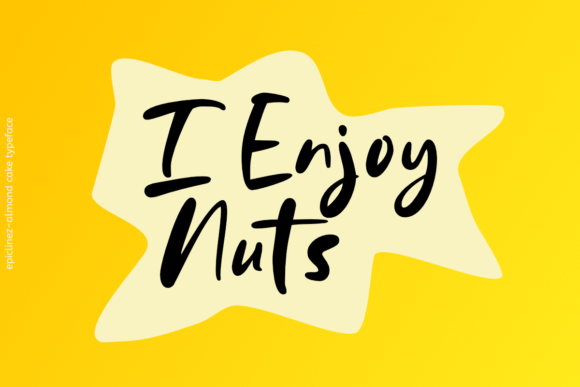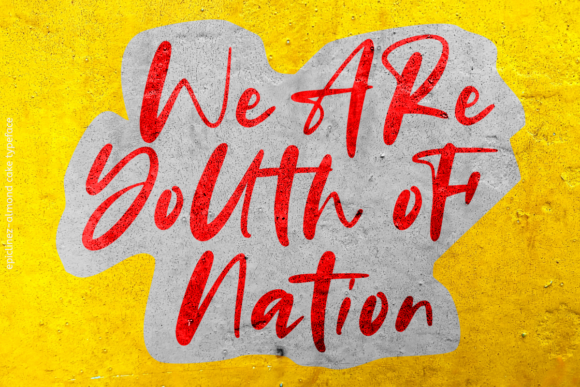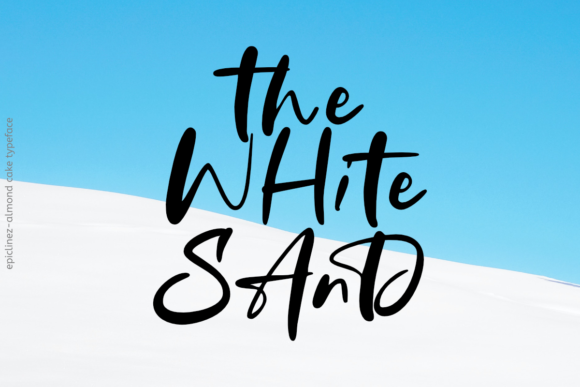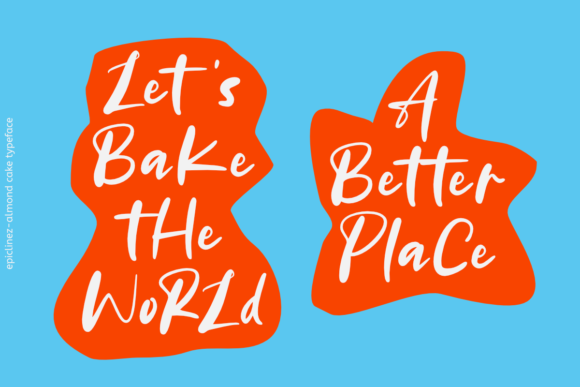
The Sweet Spot for Designers: Almond Cake Font
For those moments when you need a little something extra to get your creative juices flowing, consider reaching for the Almond Cake Font. This charming handwritten font is the perfect addition to any design project, offering a touch of whimsy and personality that’s sure to capture attention. With its natural, unique style, the Almond Cake Font is the ultimate go-to for designers looking to add a little extra sweetness to their work.
Almond Cake Font Key Features
- Font Family: Almond Cake is a script font designed to resemble handwritten text, perfect for adding a personal touch to your designs.
- Unique Characteristics: Almond Cake features a unique blend of elegance and playfulness, making it ideal for wedding invitations, birthday cards, and other special occasion designs.
Almond Cake Font Review
I recently had the chance to work with the Almond Cake Font, and I must say it’s a delightful addition to any design project. ✨ The font’s elegant script style makes it perfect for creating a warm and inviting atmosphere in your designs. It’s ideal for branding, invitations, and even wedding designs.
- Beautiful, elegant script style
- Perfect for creating a warm and inviting atmosphere
- Great for branding, invitations, and wedding designs
- Includes a wide range of characters and punctuation
However, there are a few limitations to consider. ⚠️ The font may not be as readable in smaller sizes, and it can be quite dense in certain areas. This can make it difficult to use for body text or any large blocks of text. Additionally, the font doesn’t include any bold or italic styles, which can limit its versatility.
Overall, I think the Almond Cake Font is a wonderful choice for designers looking to add a touch of elegance to their projects. While it may have some limitations, its unique style and wide range of characters make it a valuable addition to any design library.
Use the Almond Cake Font in conjunction with elegant graphics and imagery to create a sophisticated and luxurious look.
Experiment with different font sizes and styles to create visual interest and hierarchy in your design.
The Almond Cake Font is ideal for use in wedding invitations, luxury branding, and high-end packaging designs.
It can also be used in magazine and newspaper articles, as well as in social media graphics and advertising campaigns.